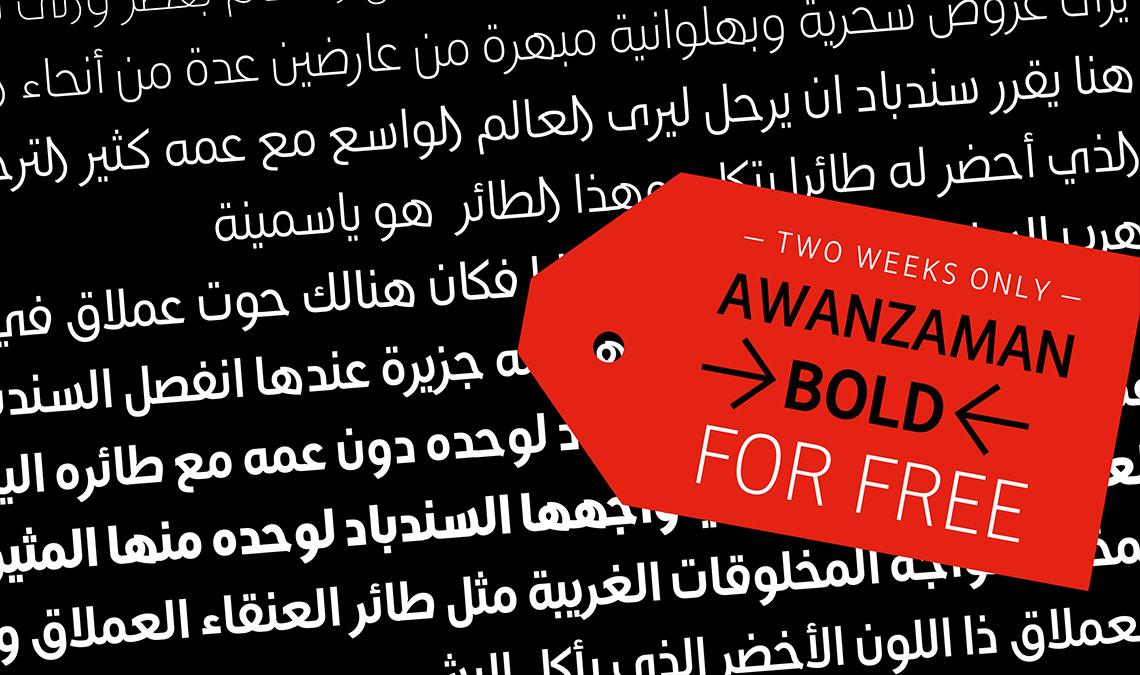
AwanZaman: Free Bold weight
AwanZaman, designed by Juliet Shen and Mamoun Sakkal, is the dual-script Arabic and Latin family for multilingual editorials and newspapers, though each script can stand on its own. Introducing more curved and novel forms in AwanZaman Latin cleverly brings its choppy strokes into greater harmony with the graceful, curved forms of the Arabic.
AwanZaman is a clever, seven-weight powerhouse that makes extensive use of OpenType’s stylistic sets (20 in the Arabic and four in the Latin) so writers and designers can make the most of everything from a single glyph in display sizes down to dense text in paragraphs. As AwanZaman Arabic has no italic, neither does the Latin; contextual distinction normally handled by italics is achieved by exploiting the family’s seven weights. AwanZaman ’s intricate OpenType programming supports Persian and Urdu, with features such as the returning tail of Barri Yeh treated properly.